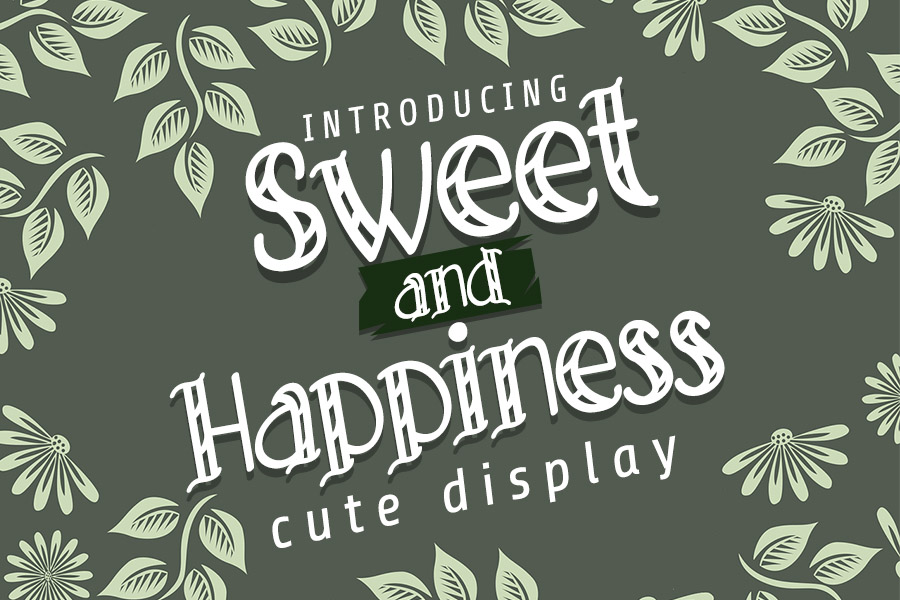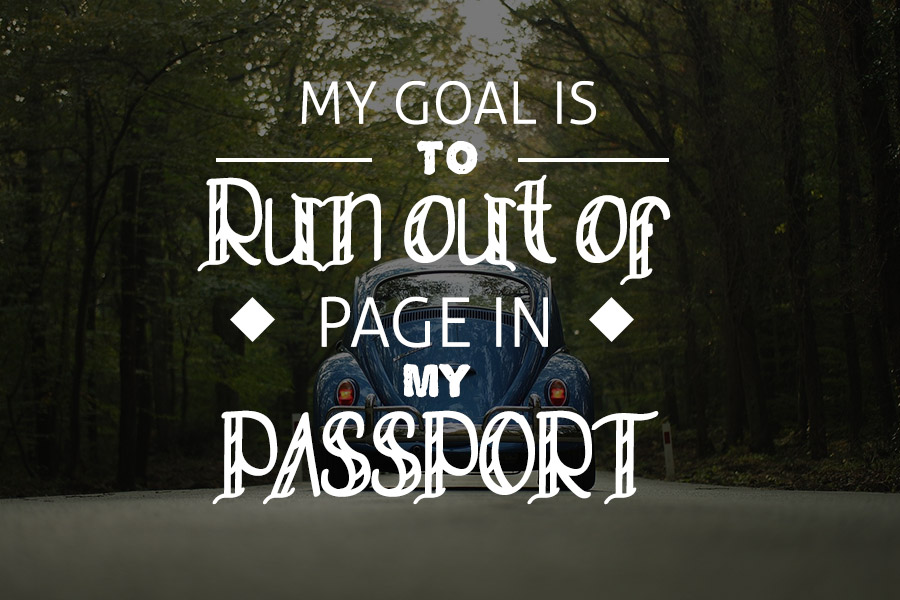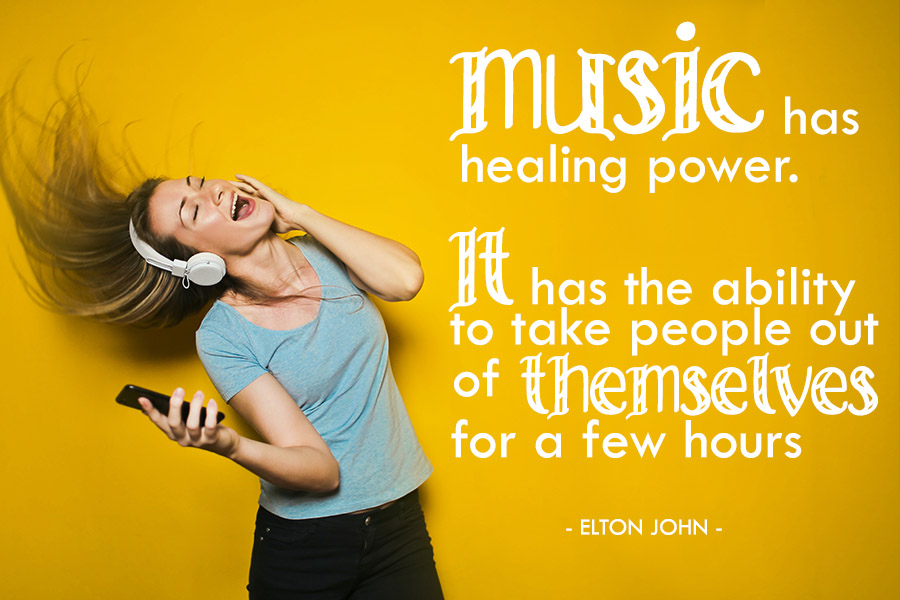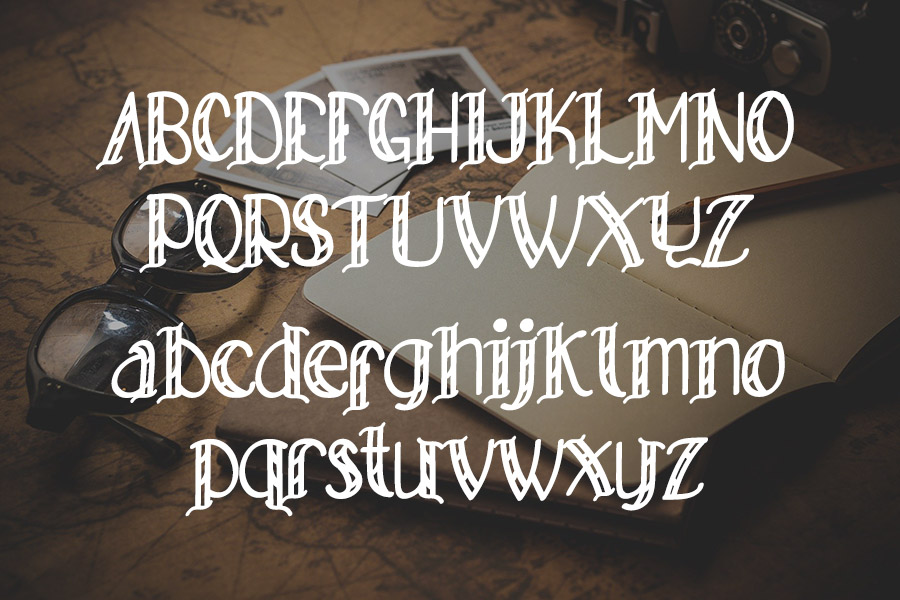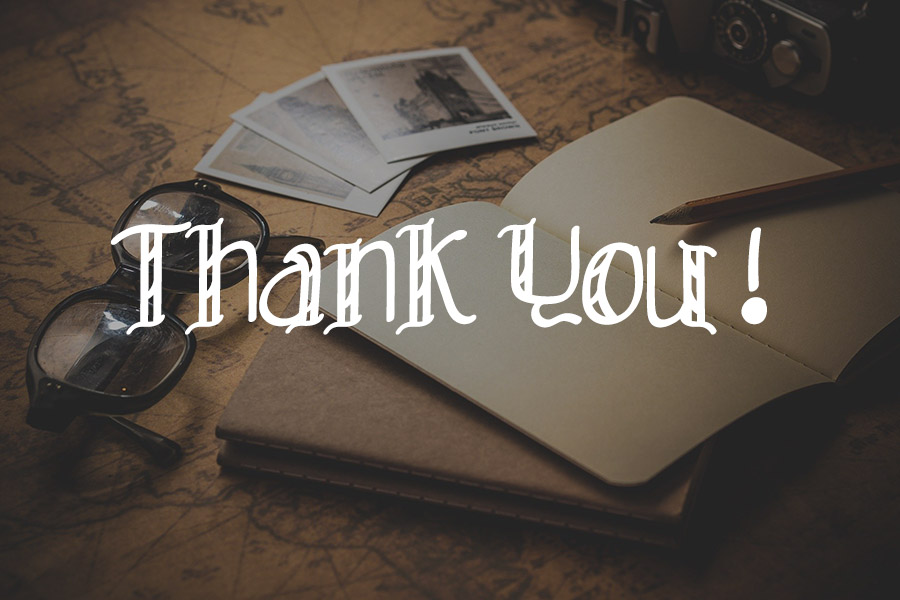
Sweet and Happiness Display Font
It’s a cute, whimsical and friendly display font. No matter the topic, this font will be an incredibly asset to your fonts’ library, as it has the potential to elevate any creation